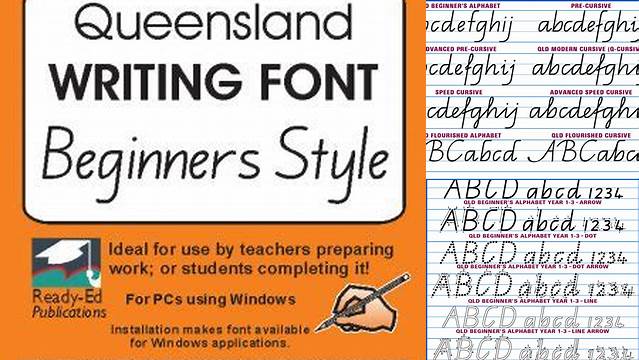
Introduction: Embark on Your Typography Journey with a Free Font
Hey guys! Are you looking to add a touch of charm and approachability to your designs? Well, look no further! The Queensland Beginners Font is here, and guess what? It's available for free download! This font is perfect for anyone starting their design journey or for projects that require a friendly, handwritten feel. In this comprehensive guide, we'll dive deep into everything you need to know about the Queensland Beginners Font. We'll cover its features, how to download and install it, and even explore some creative ways to use it in your projects. So, whether you're a seasoned designer or just starting out, buckle up, because this is going to be a fun ride. This font has become a favorite for beginners because of its ease of use and the friendly vibe it brings to any project. Let's get started on how you can get your hands on this amazing font.
What Makes Queensland Beginners Font Special?
The Queensland Beginners Font isn’t just another font; it's designed with a specific purpose: to be accessible and engaging. It's a handwritten-style font that exudes warmth and personality. What really makes this font shine is its balance between readability and style. Its clean lines and simple letterforms ensure that your text is easy to read, while the handwritten style adds a personal touch that can make your designs stand out. This font is designed with beginners in mind, the clear letterforms making it easy to read and implement, without any confusing elements. The design of the font is carefully crafted to give a natural, slightly imperfect look, which adds to its charm and approachability. When using this font, you’re choosing a design element that invites the viewer in, creating a friendly and approachable atmosphere that's great for both personal and professional projects. This makes the Queensland Beginners Font an excellent choice for various applications where clear communication and a touch of personality are desired.
Let's zoom in on the features that make the Queensland Beginners Font so awesome. First off, its handwritten style is its most defining characteristic. This style gives your designs a human touch, making them feel more relatable and less corporate. Next, the font boasts excellent readability. This is super important, right? You want people to actually read what you've written! The characters are well-defined and easy to distinguish, even at smaller sizes. The font includes a full set of characters, including letters, numbers, and basic punctuation, meaning you have all the tools you need to create full messages. The design of this font is simple and clean, avoiding unnecessary flourishes that might distract from your message. With these features, the Queensland Beginners Font provides a versatile tool that caters to a wide array of design needs, making it a valuable asset for anyone looking to inject personality into their creative work. Its unique design approach makes it perfect for both display and body text, ensuring flexibility and ease of use.
Creative Uses and Design Applications
Projects Where Queensland Beginners Font Shines
So, where can you use this awesome font? Well, pretty much anywhere you want to add a personal touch! The Queensland Beginners Font is perfect for various projects, adding a warm and approachable feel. It's a great option for greeting cards, giving them a handmade feel. Think about adding it to your social media graphics to create engaging posts, especially those that need a friendly vibe. The font also works brilliantly for blog headers and titles, making your content more inviting to readers. You can also use it for website headings, poster designs, and even in your personal stationery. The font's versatility makes it suitable for a wide range of applications where a touch of handwriting style is desired. No matter your project, this font can help inject a bit of personality.
Tips for Using the Font Effectively
Here are some tips to make the most out of the Queensland Beginners Font. First, use it strategically. Avoid overusing it, especially in long blocks of text, as its handwritten style is best suited for headings, short phrases, or emphasis. Combine it with a more formal font for body text to create a balanced design. Make sure you consider the background. Contrast is key. Use it against a clean background to ensure readability. This font works best when it stands out. Avoid cluttering the design. Keep the design clean and allow the font to be the focal point. You want your message to be clear, so don't overcomplicate your design. Remember, the goal is to enhance your message, not to overwhelm the reader. By following these tips, you can create visually appealing designs that make the Queensland Beginners Font shine!